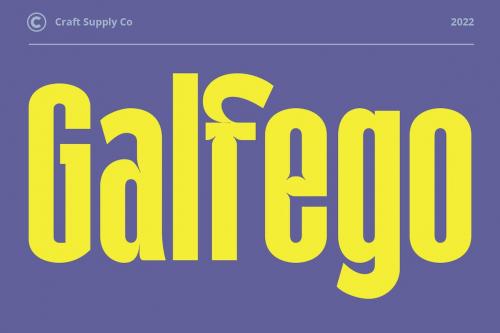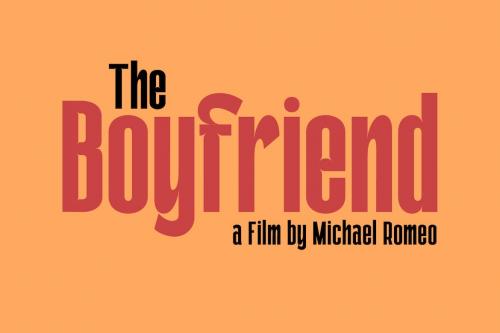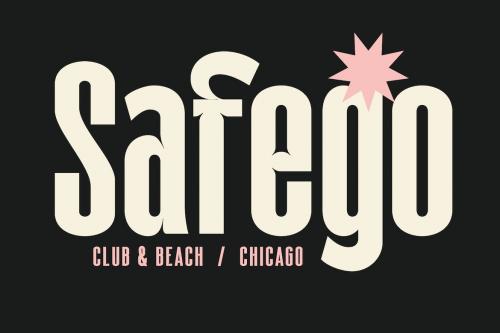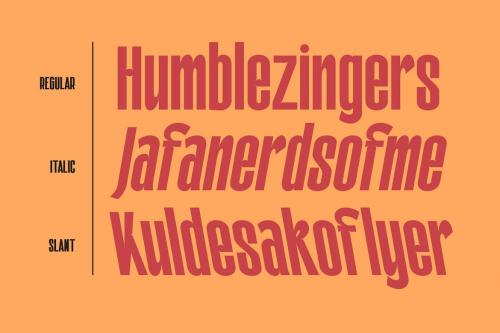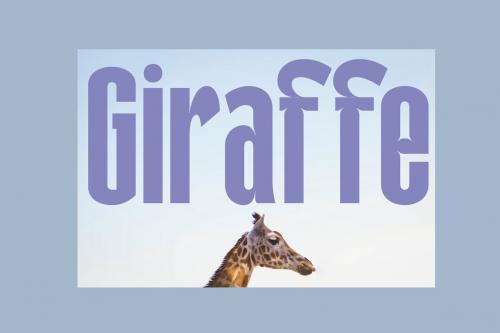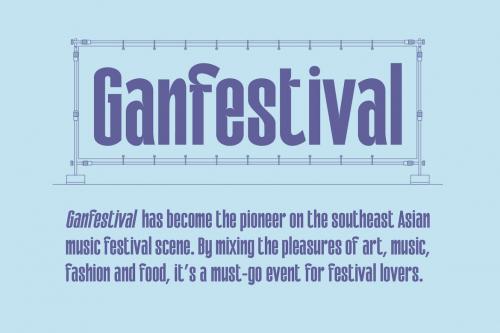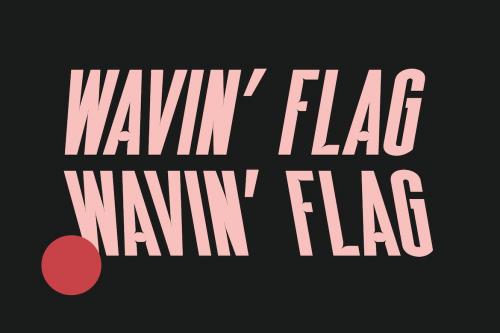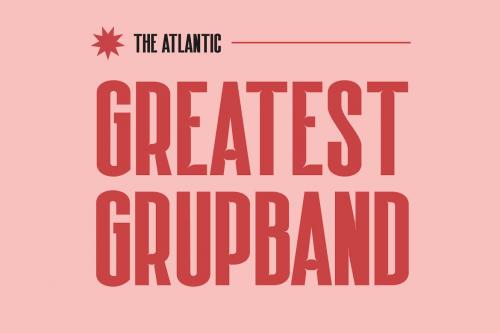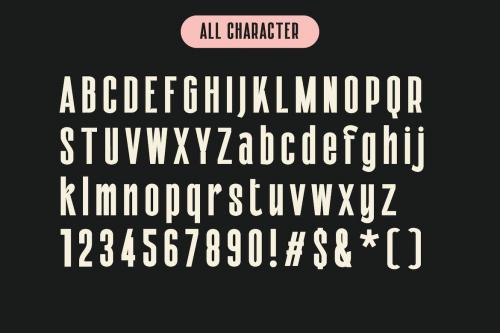
盖菲哥字体
Galfego Font
Galfego Condensed Sans Serif Font, made with its own unique character and form of typeface. It's a massive font that will grab the attention. It's gonna look great on a magazine spread, cover or a poster in large print. Looking for a font that is versatile, modern and stylish? Regarn is the perfect choice!. You can use from webpages to print projects, Regarn will be sure to meet your needs.
Galfego Condensed Sans Serif Font, made with its own unique character and form of typeface. It's a massive font that will grab the attention. It's gonna look great on a magazine spread, cover or a poster in large print.
Looking for a font that is versatile, modern and stylish? Regarn is the perfect choice!. You can use from webpages to print projects, Regarn will be sure to meet your needs.